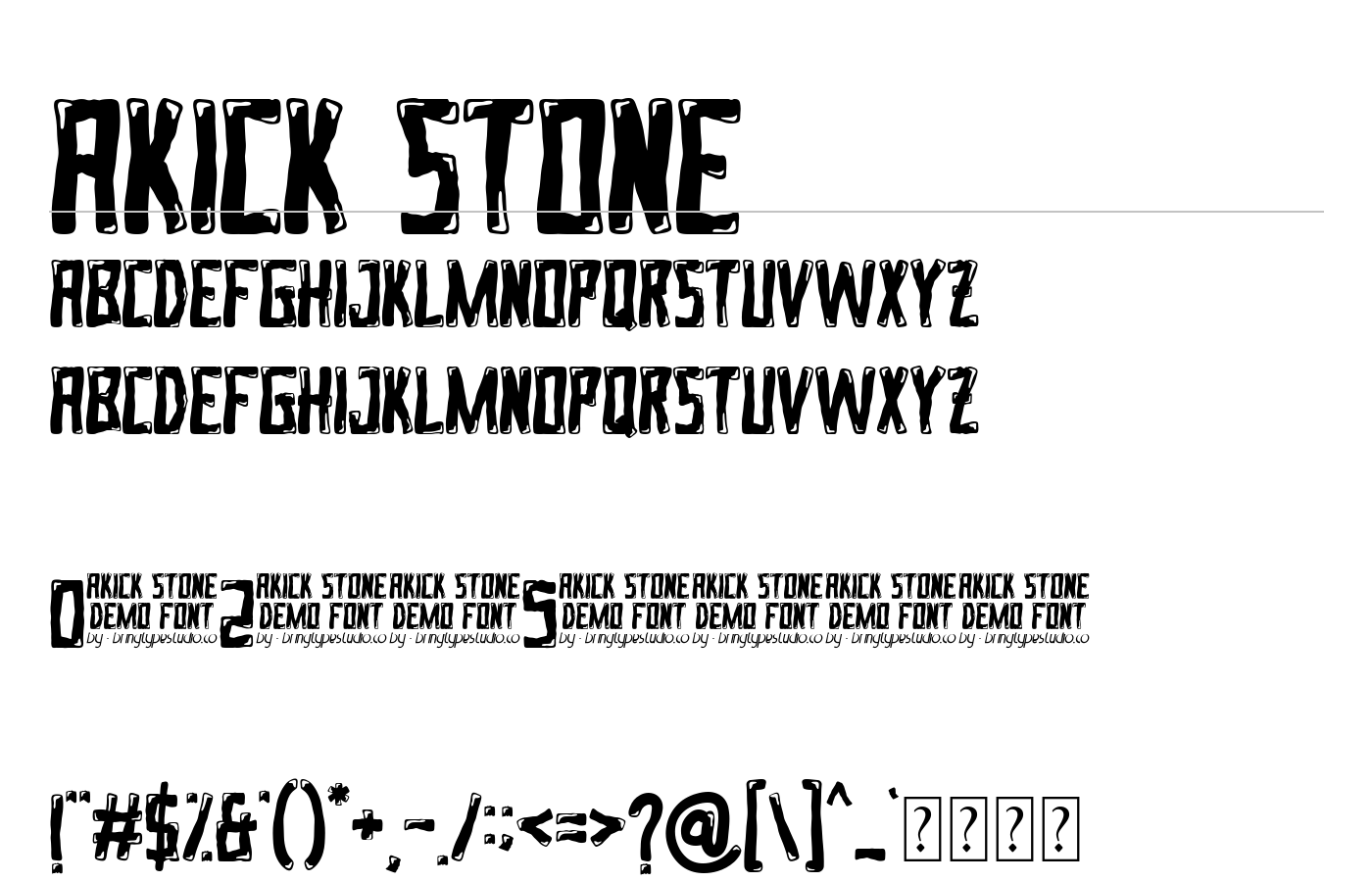
AKICK STONE is a bold, condensed sans serif font with a rugged, hand-crafted feel that mimics the texture and irregularity of stone or rough surfaces. Its uppercase-only letterforms have a playful yet edgy personality, making it ideal for creative, adventurous designs that want to stand out. This font works best in logos, posters, and headlines where a strong, distinctive character is needed to convey a raw, energetic vibe.
AKICK STONE Font
About AKICK STONE Font